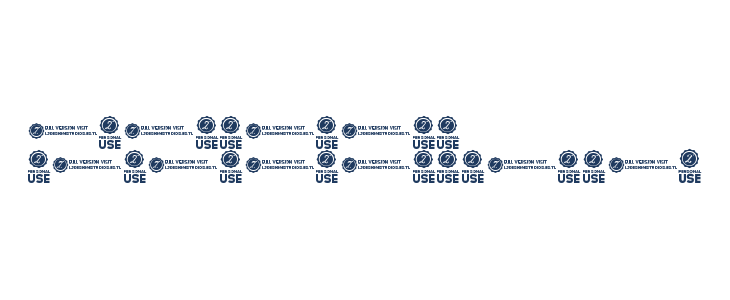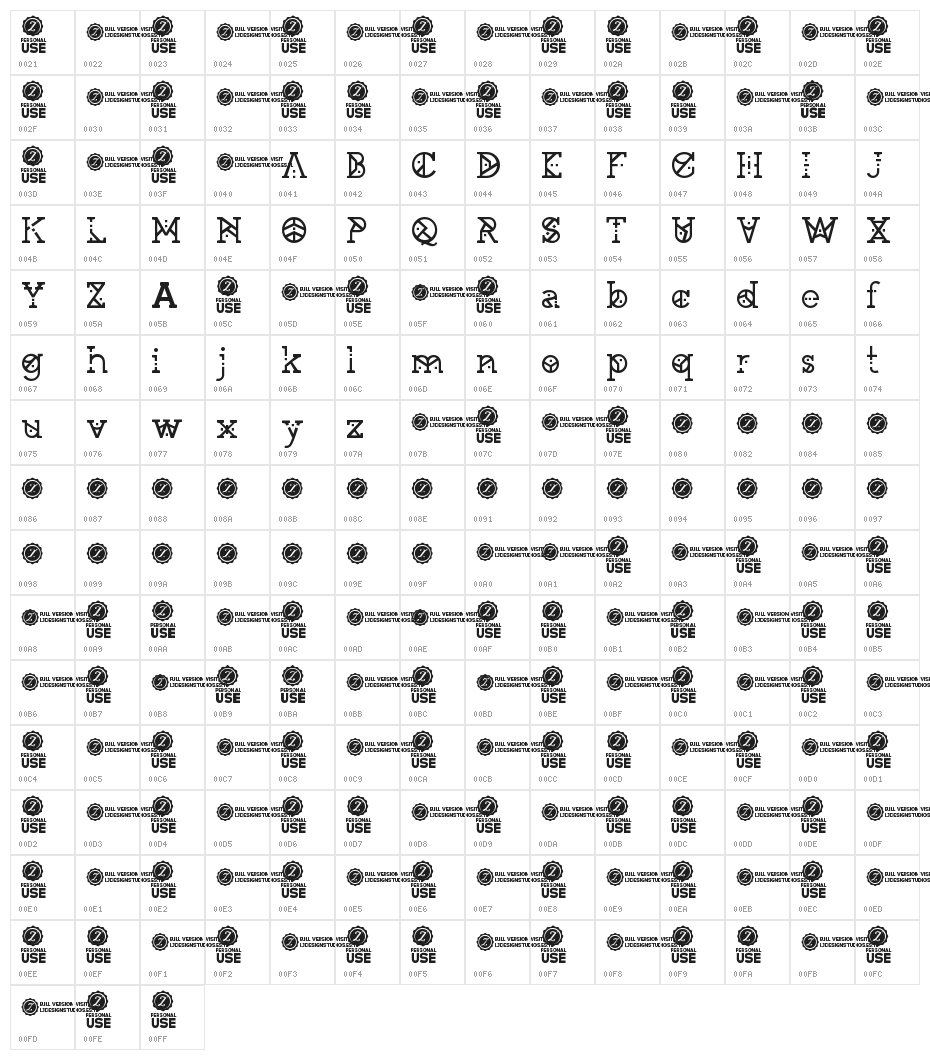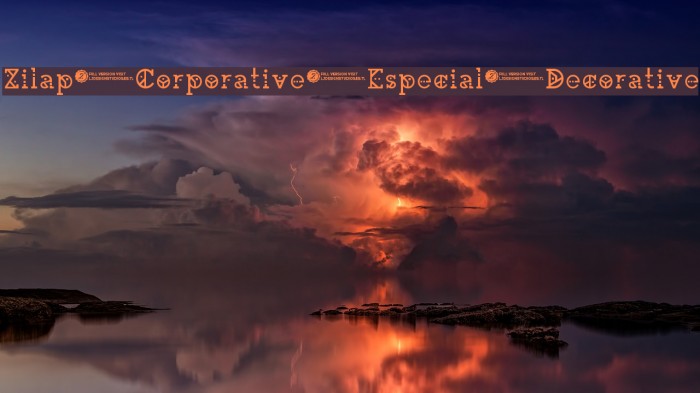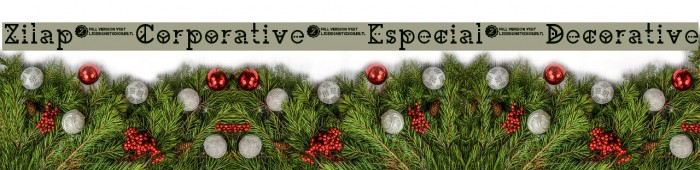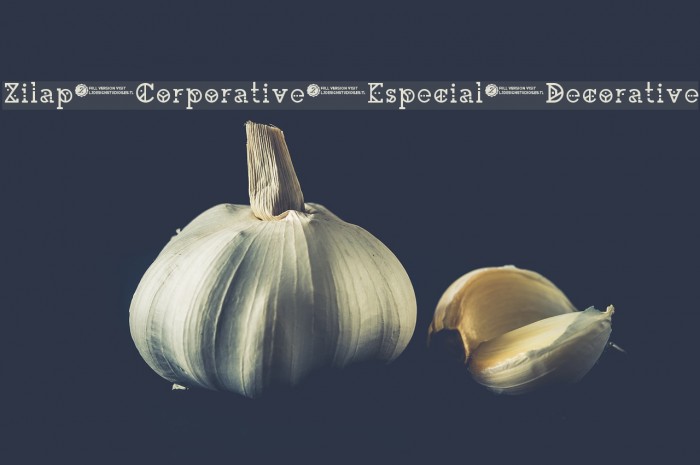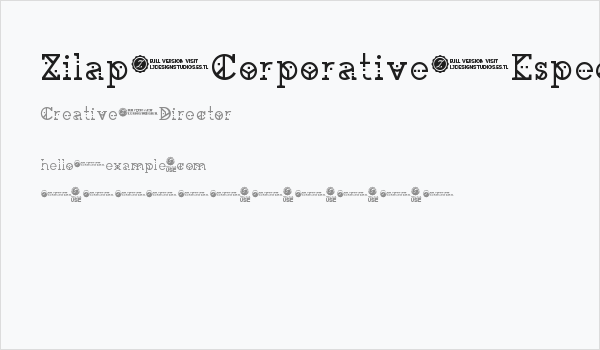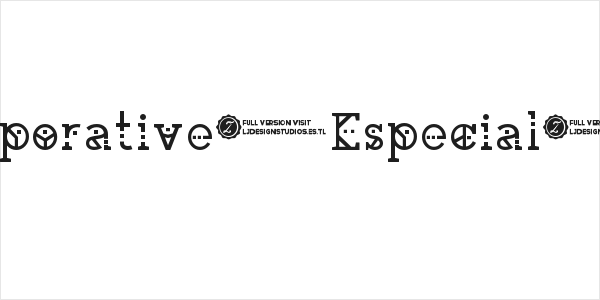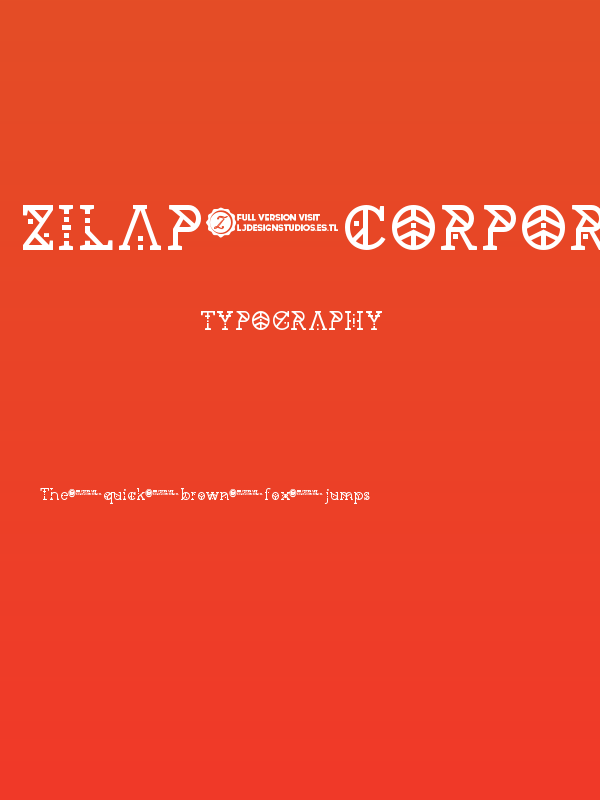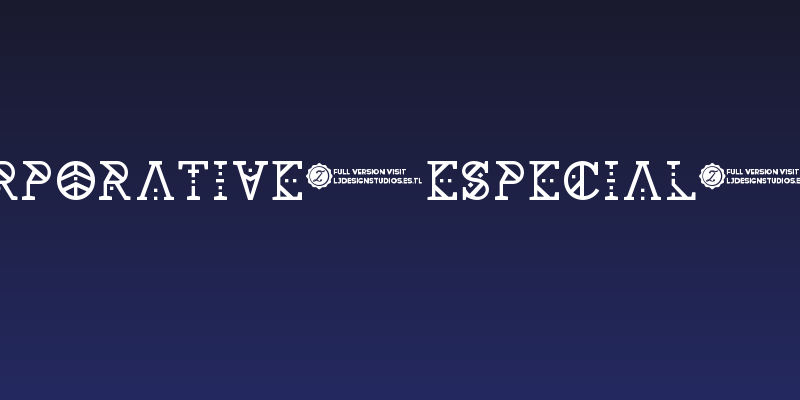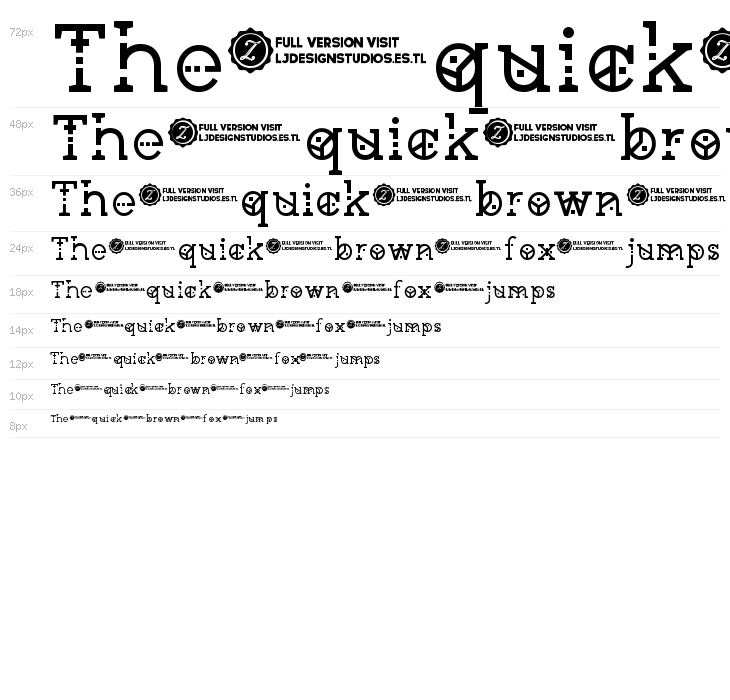
Zilap Corporative Especial Decorative Font
Zilap Corporative Especial Decorative Description
This font features a unique and decorative style with a modern twist. The uppercase letters are characterized by geometric shapes and intricate patterns, giving them a distinct and eye-catching appearance. The lowercase letters maintain a similar style, with consistent geometric elements that create a cohesive look. The font includes numerals and a selection of special characters, all designed with the same decorative flair. The overall design is bold and artistic, making it suitable for projects that require a standout typographic element.
| Proposed Projects | Ideal for branding, posters, album covers, and any project needing a bold, artistic touch. |